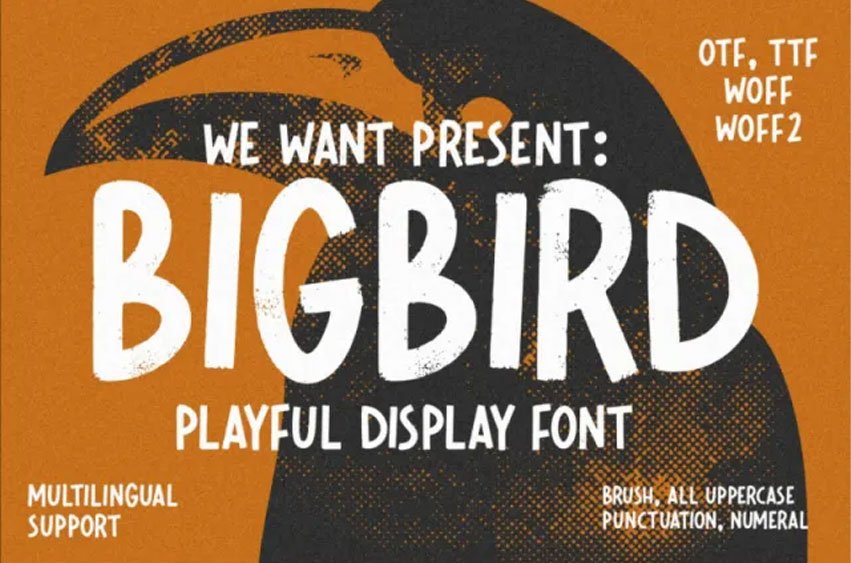
Bigbird Font
Bigbird Font is a brush-style font craft that is carefully crafted for each character, this font is playful, cheerful, happy, suitable for branding designs related to children such as logos, label designs, packaging designs or others.